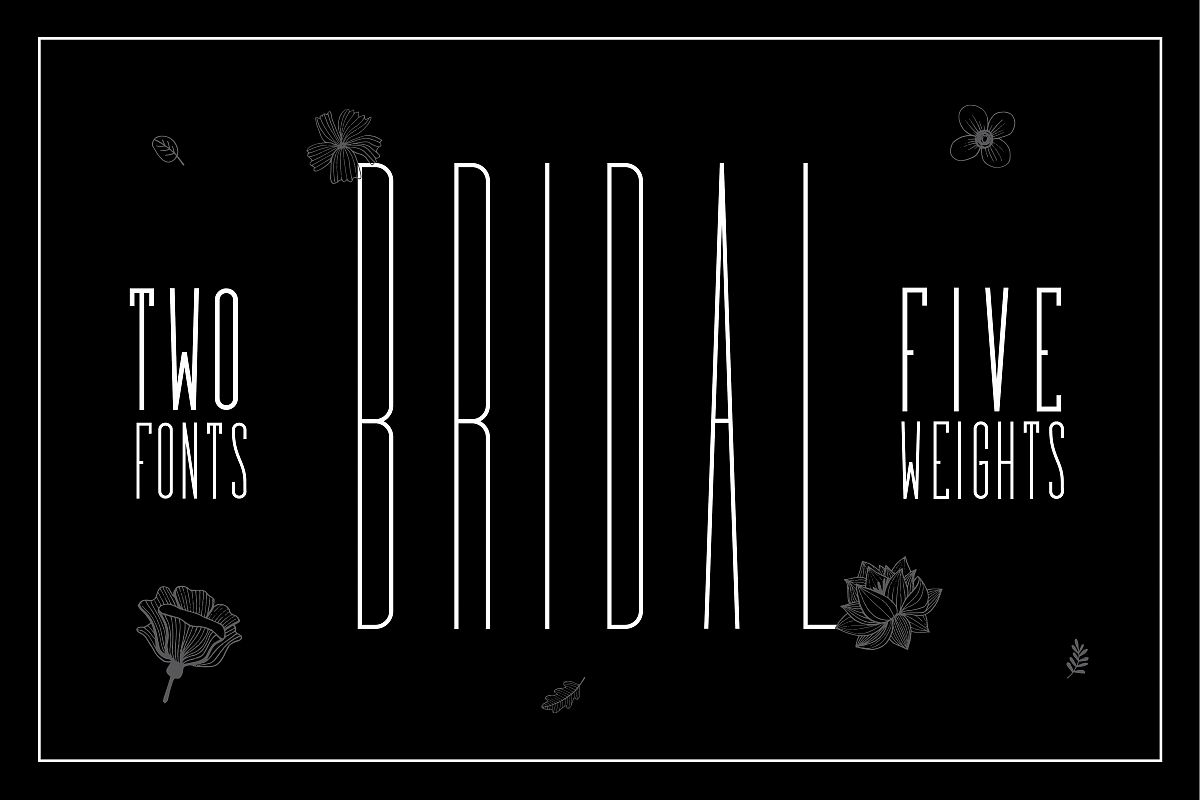
Bridal - Sans Serif Font Family
Meet Bridal Sans Serif Font! A font inspired by my best selling font Sprout! (also Included - https://goo.gl/Z2rvGN ). Bridal font comes with two styles, Tall and Short, with 5 weights each, so you can make gorgeous designs with a lot more flexibility for your wedding and fashion projects.
• All Caps Font